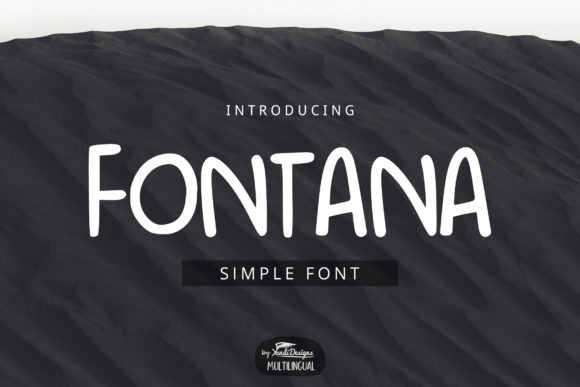
Journey into the realm of fonts, where creativity dances upon the canvas of your designs. Discover Fontana Font, the captivating display font that ignites your imagination and leaves an unforgettable mark. Crafted with a touch of whimsy and a dash of delight, Fontana Font is the perfect companion for your artistic endeavors.
With its playful and carefree nature, Fontana Font breathes life into your school projects, greeting cards, posters, and social media graphics. Its charming curves and innocent strokes weave a tale of wonder and innocence, capturing the essence of youth and imagination.
Experience the sheer joy of crafting designs that radiate with personality and warmth. Let your words dance across the page, adorned with the enchanting strokes of Fontana Font. Its simple yet captivating style ensures that each character carries the weight of your message, leaving a lasting impression on your audience.
Unleash your inner child and explore the boundless possibilities that Fontana Font presents. Its versatility knows no bounds, making it the perfect choice for a wide range of projects. Whether you're designing invitations for a birthday party or creating eye-catching flyers for a school event, Fontana Font is your trusted companion.
Express yourself with a font that embodies your carefree spirit and love for the whimsical. Fontana Font is not just a collection of letters; it's an extension of your personality, a reflection of your unique style and vision. Join the countless designers and artists who have discovered the magic of Fontana Font and let your creativity soar.